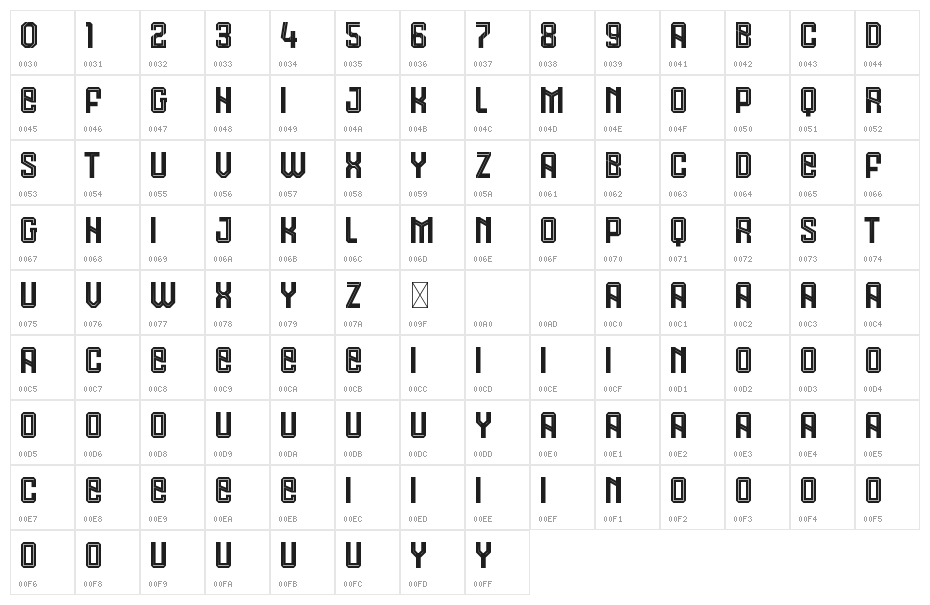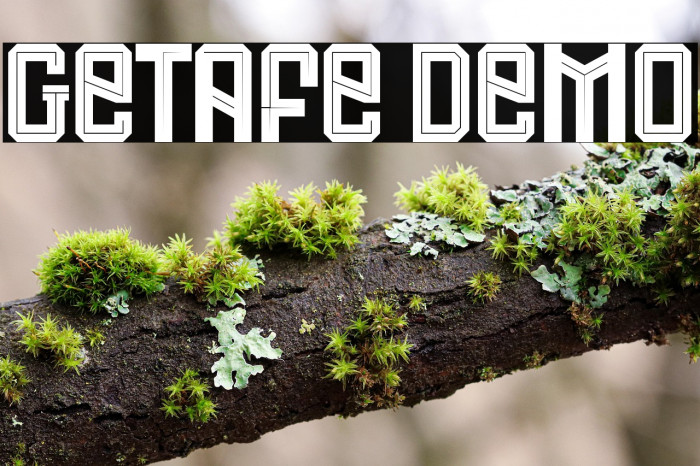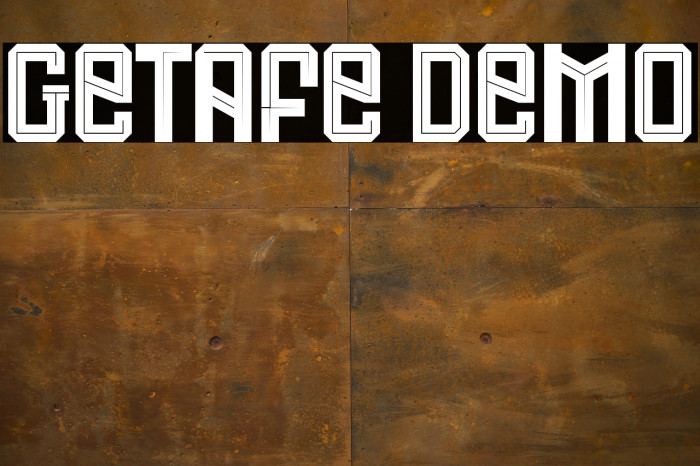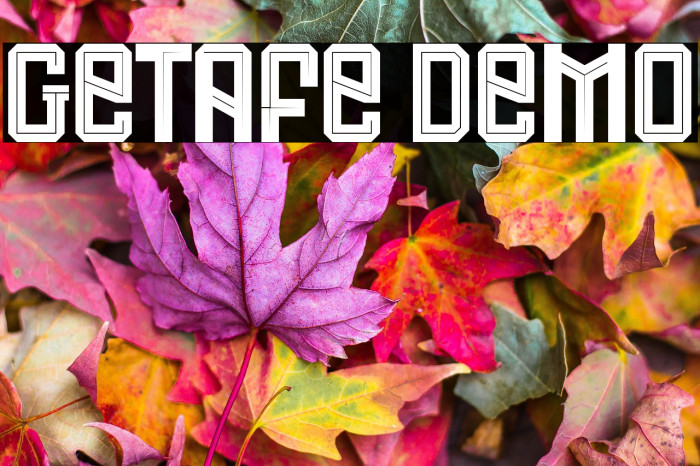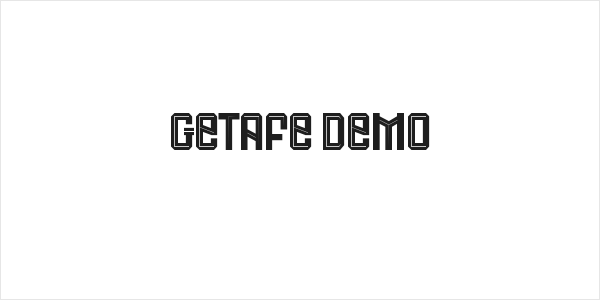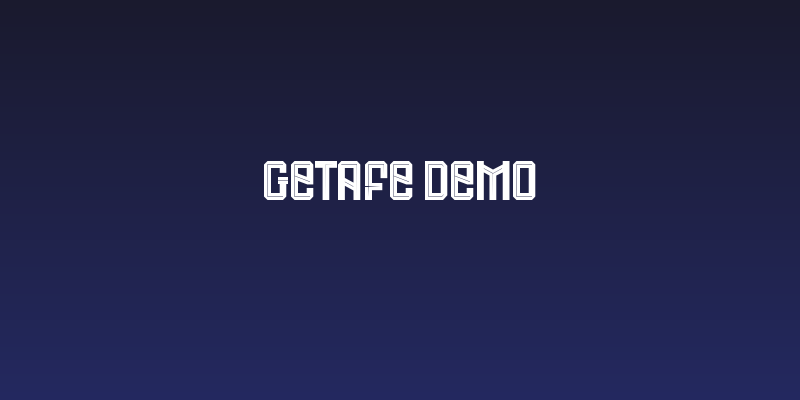
Getafe Demo Font
Getafe Demo Description
This font features a bold, geometric design with a strong emphasis on angular lines and sharp edges. The characters are outlined with a thick border, creating a striking contrast between the inner and outer sections. The font has a modern, industrial feel, reminiscent of architectural structures or machinery. Its uppercase letters are uniform in height, while the numerals maintain a consistent style, ensuring readability. The overall design is both eye-catching and functional, making it suitable for various creative applications.
| Proposed Projects | Ideal for branding, posters, and signage where a bold, modern look is desired. |